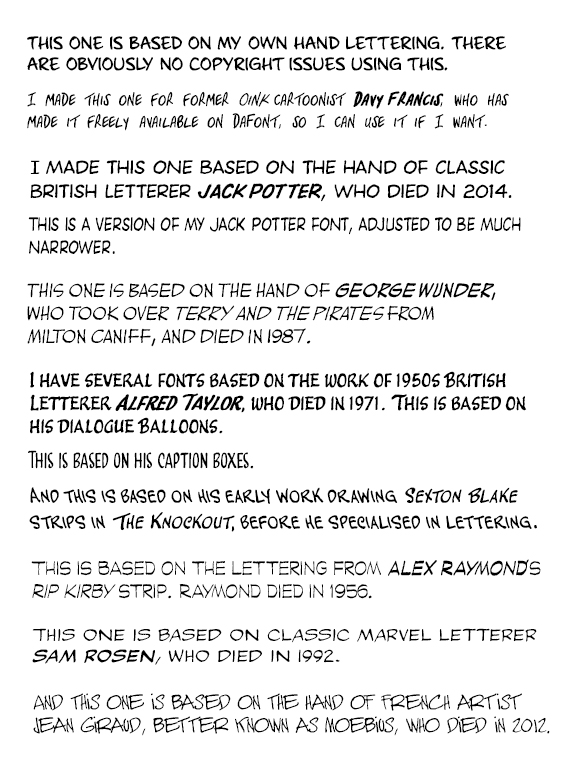
I’m a comic artist, and I bought FontCreator several years ago to make a font to letter my work. I’m very happy with the results, and have made a variety of fonts, of different widths and different levels of formality and informality, based on my own hand lettering.
I’ve also made a variety of fonts based on the work of other letterers. I’ve done this by scanning samples of their work, cleaning them up in Photoshop, and importing them into FontCreator, and where i can’t find a particular character, making it myself based on the kind of lines and curves they use in the characters I do have samples of.
Some samples below.
Some of my fonts are more transformative than others. For example, I made a narrower version of my Jack Potter font by adjusting the letterforms in Photoshop and FontCreator, and I actually prefer it to the original.